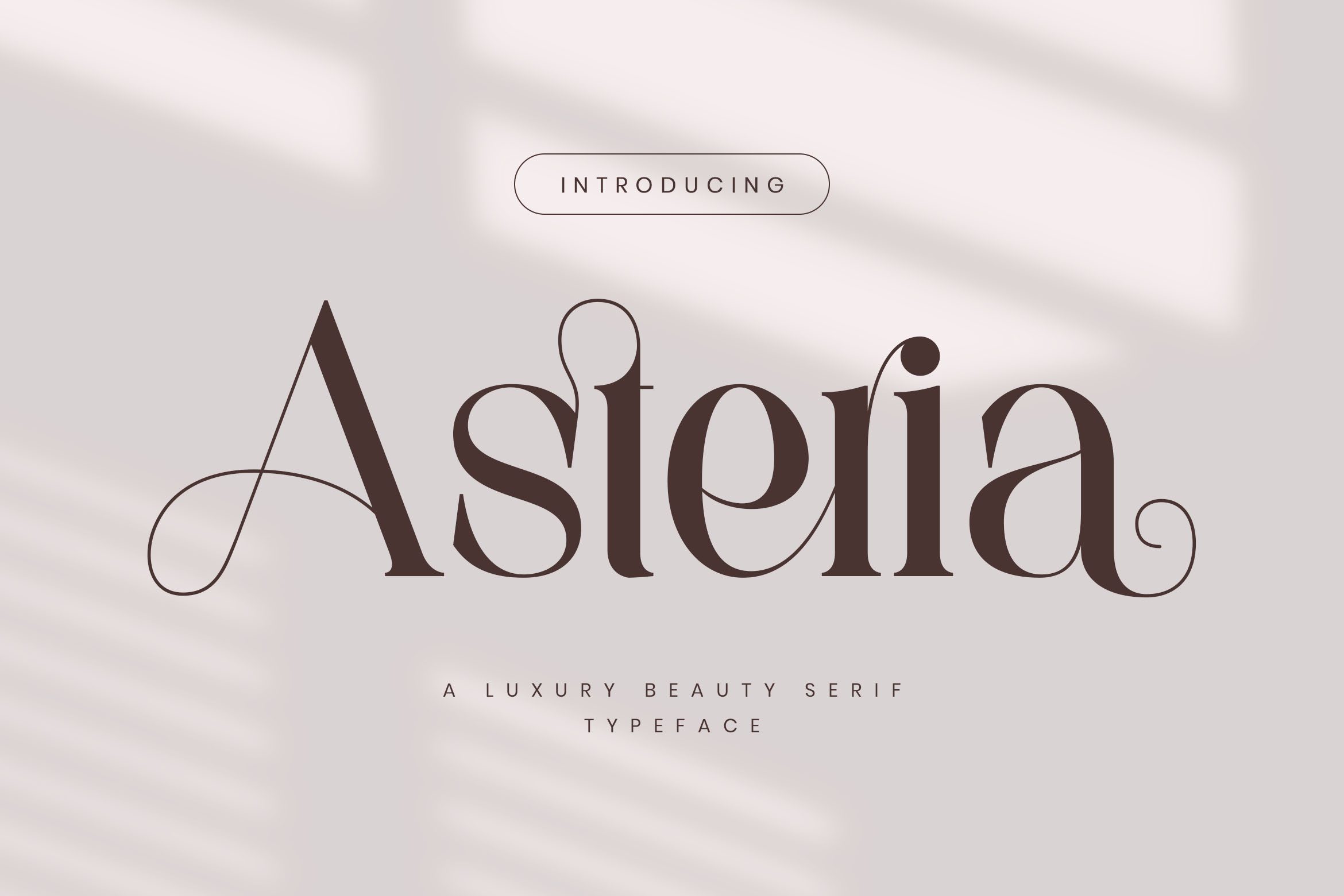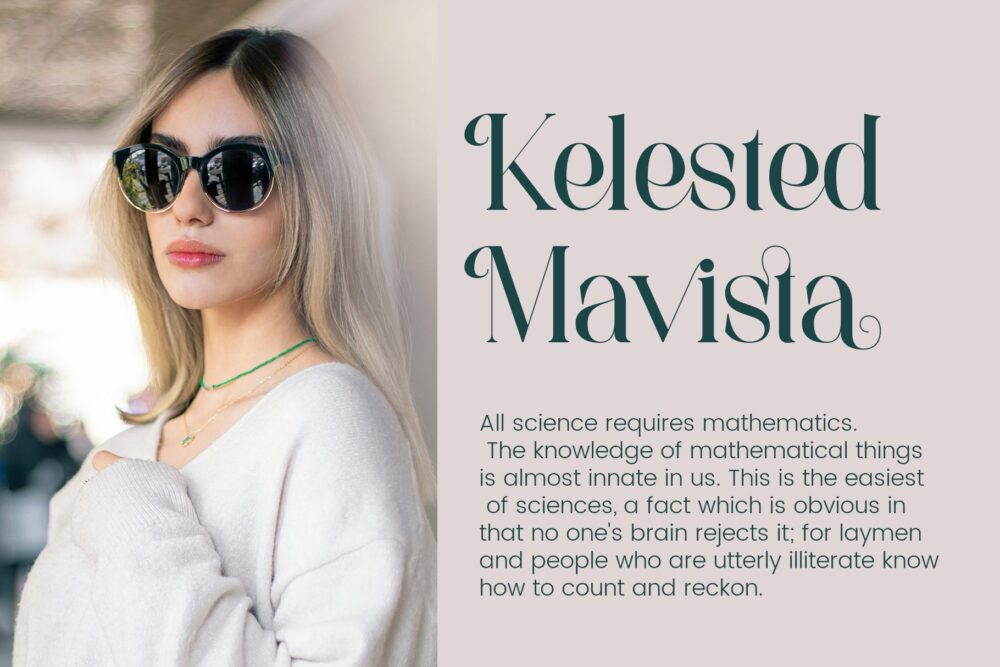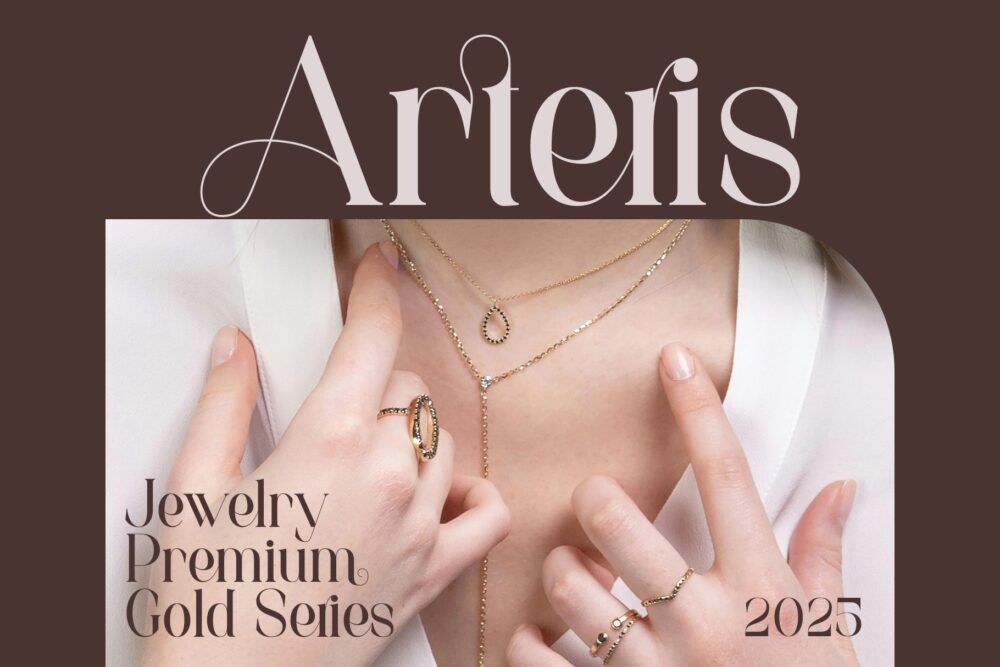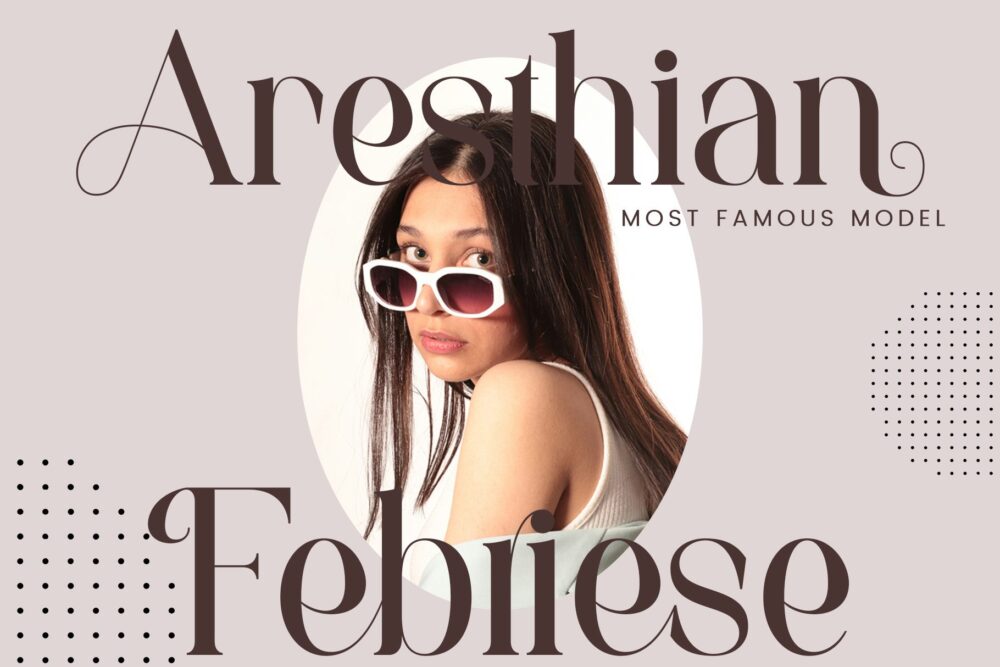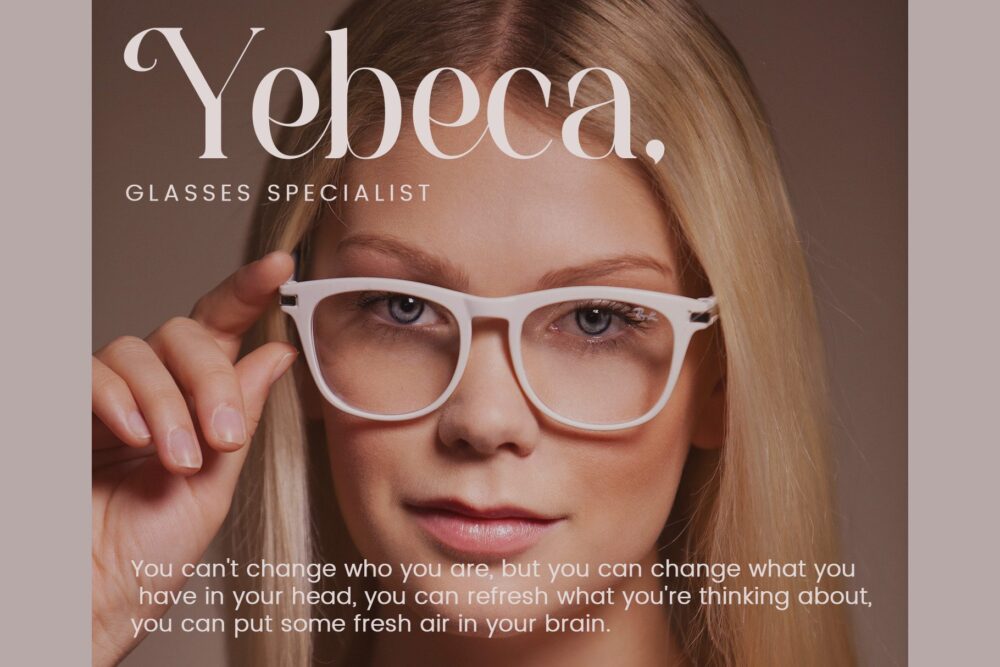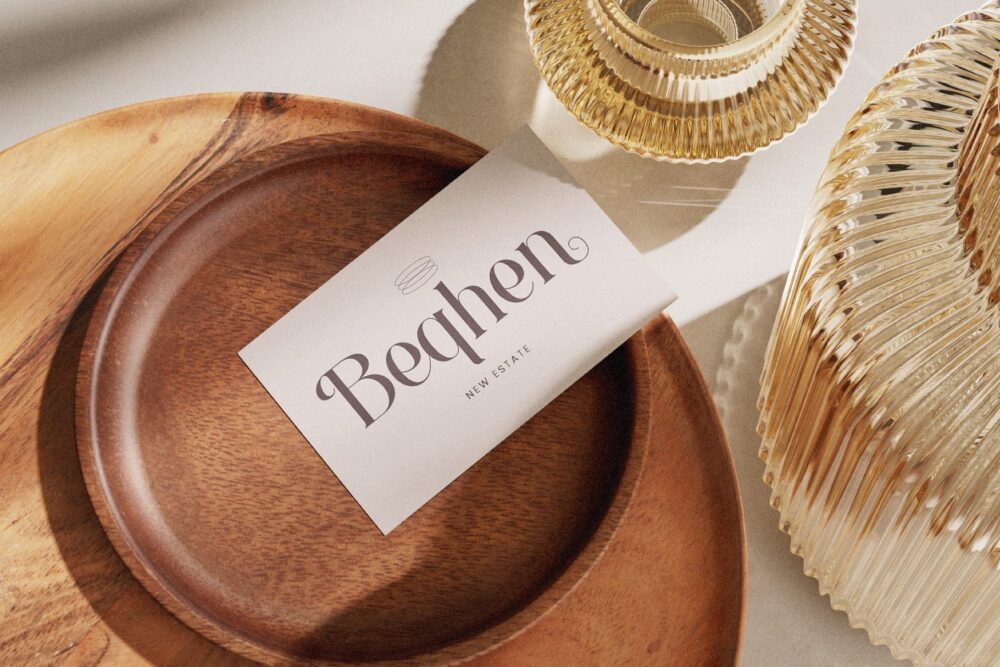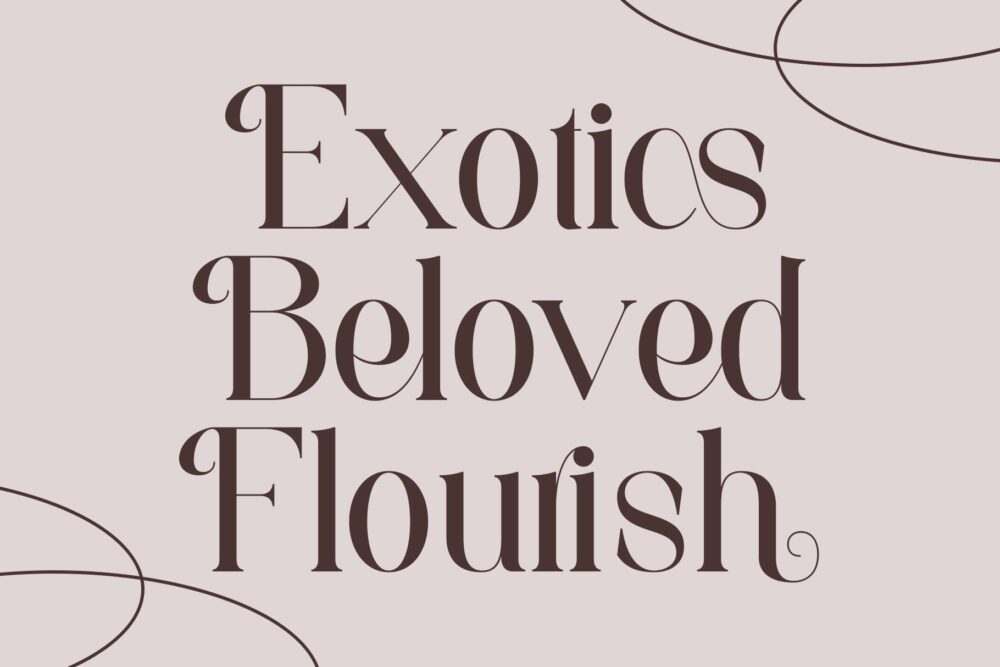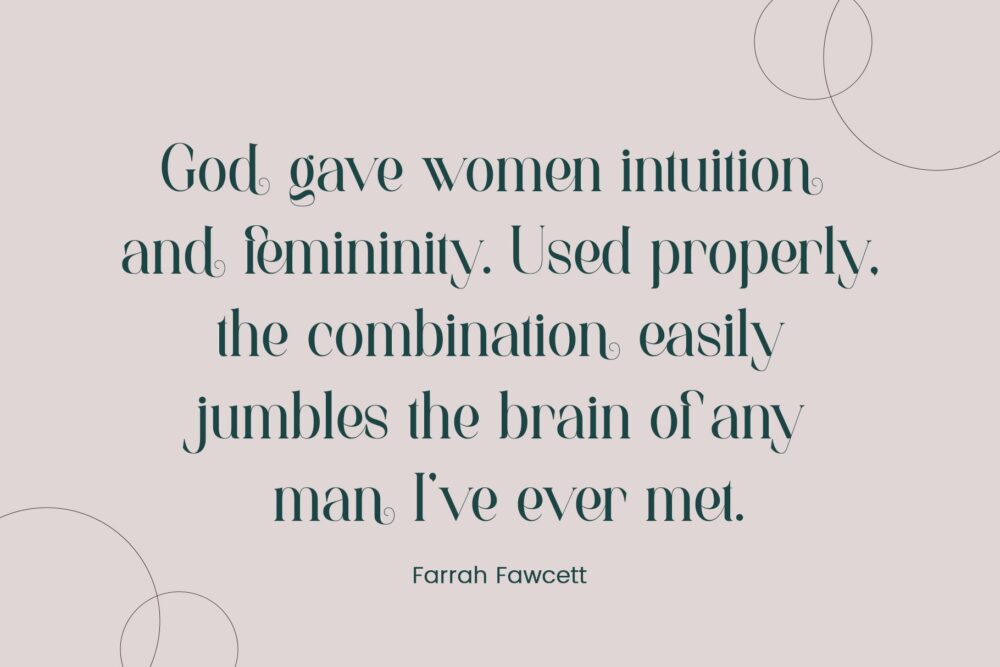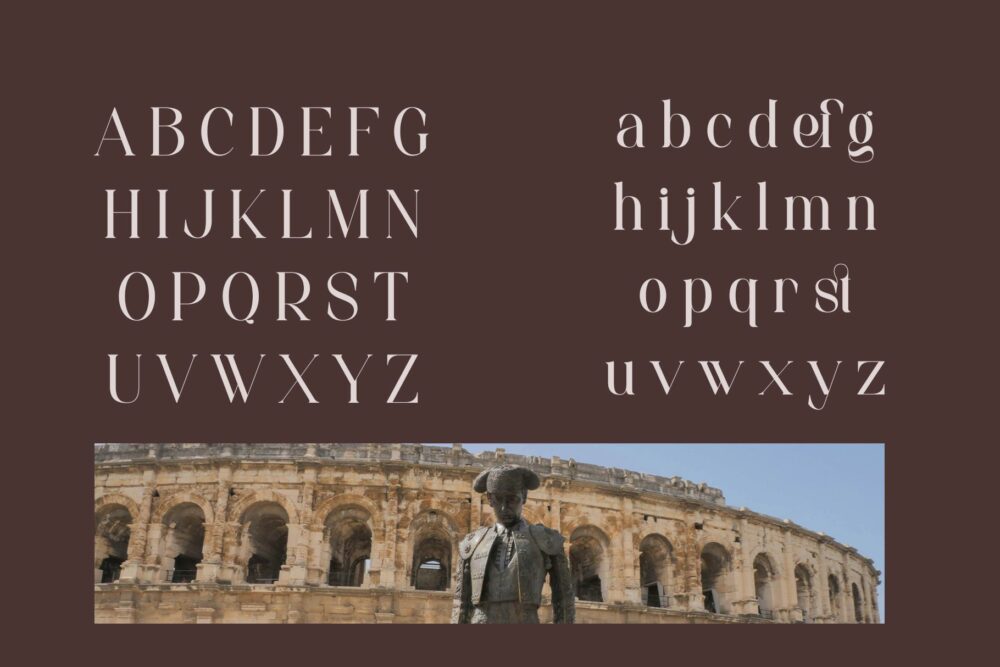
luxury beauty serif font
Asteria
Asteria Stylish Ligature Typeface, inspired by the famous minimalist logo perfect for the purposes of designing templates, brochures, videos, advertising branding, logos and more.
Asteria – Luxury Beauty Serif Font